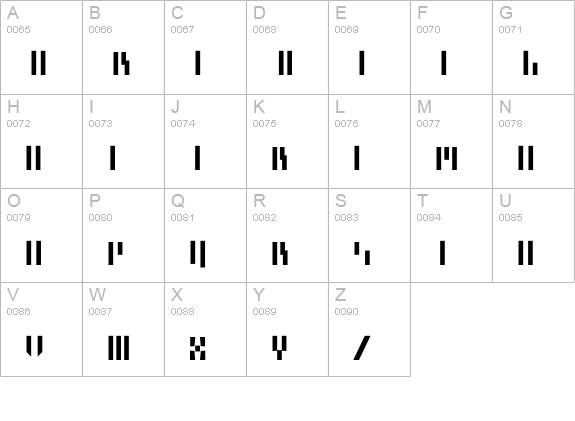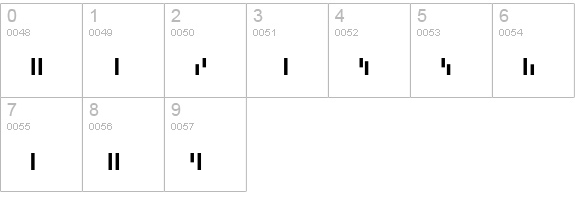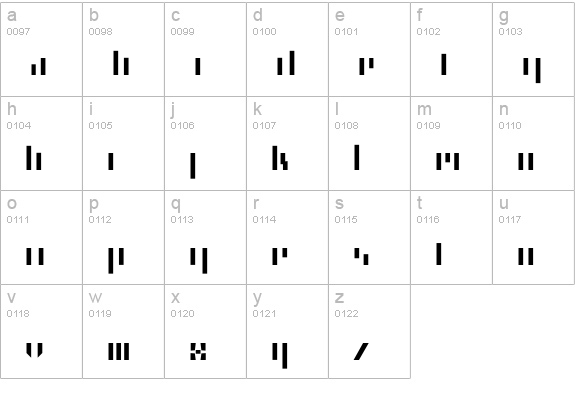
Minimum-BichroNoirVertical Font Details
The Minimum-BichroNoirVertical font is a sleek and modern typeface that exudes sophistication and elegance. Its minimalistic design and bold vertical strokes make it perfect for creating eye-catching headlines, logos, and branding materials. This versatile font is ideal for both digital and print projects, adding a touch of style and sophistication to any design. Best of all, the Minimum-BichroNoirVertical font is available for free download at FontsMarket.com. Whether you're a professional designer looking to elevate your projects or a hobbyist seeking a unique typeface for personal use, this font is a must-have addition to your font collection. Download it today and unleash your creativity with this stunning and stylish font.